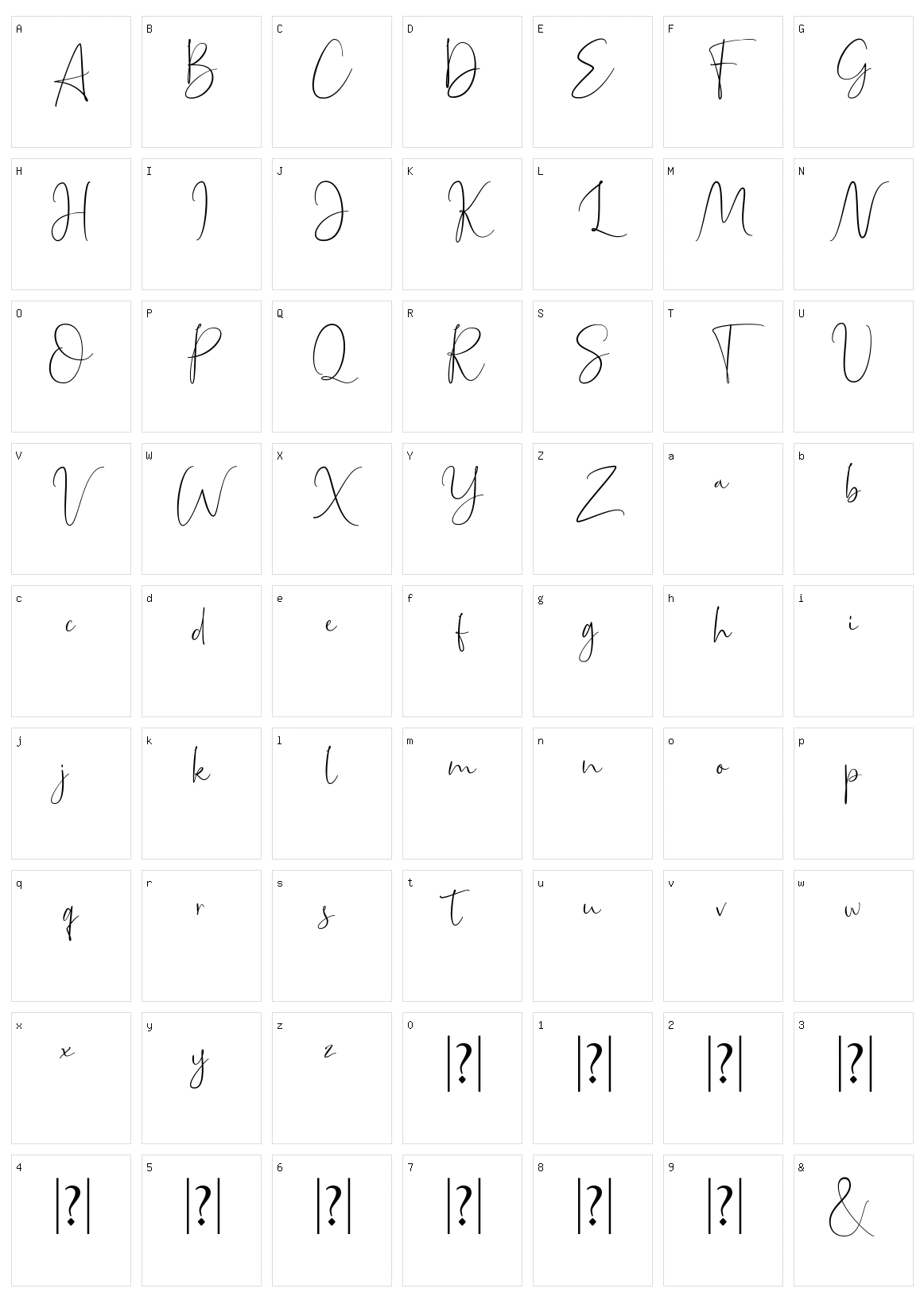
The free font Bettrish is carefully designed by Blue Studio09, showcasing a thoughtful balance of creativity and usability and falls under the Script font style. When you download the ZIP file, it contains only 88.35 KB of font files, making it lightweight and quick to download. Please review the license details below to understand permitted usage and distribution rights. If license information is not available, we recommend using this font for personal projects only or contacting the author directly for commercial usage permissions.